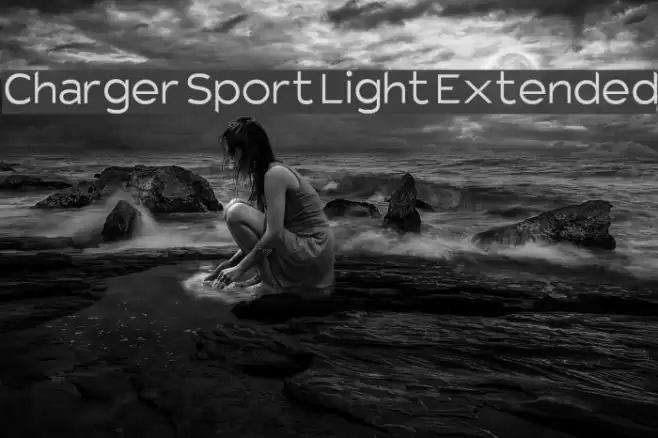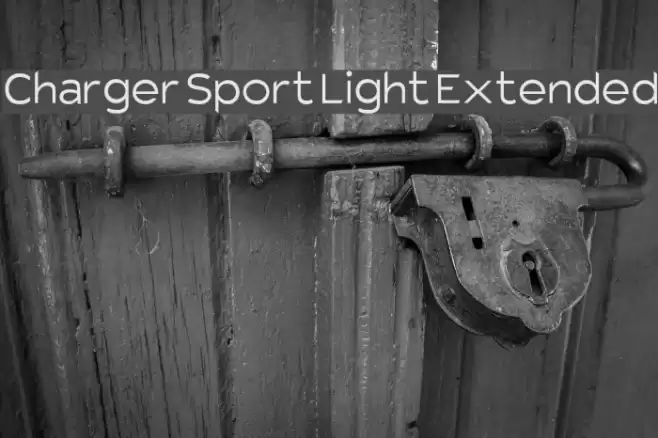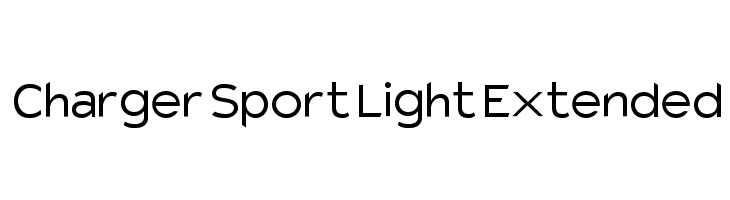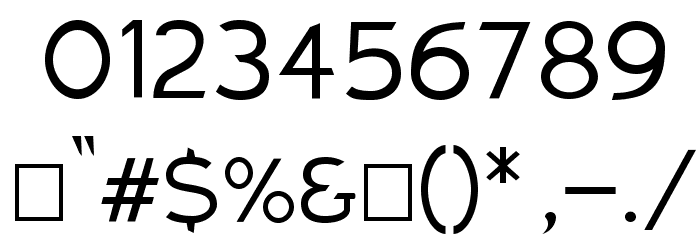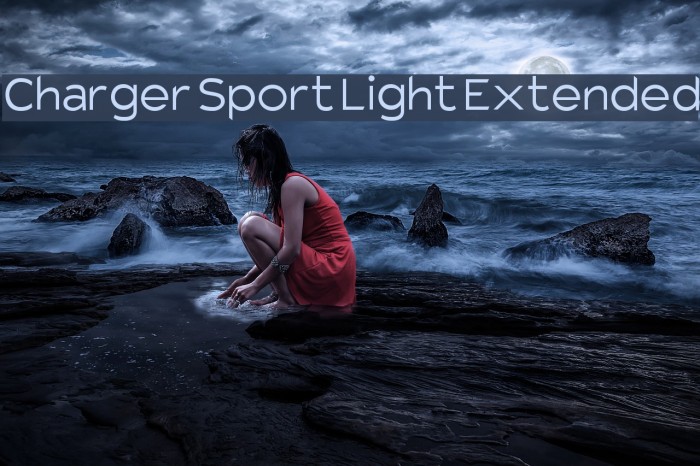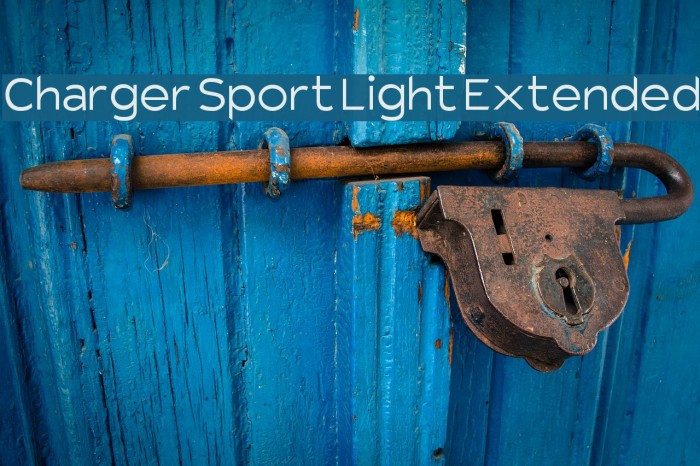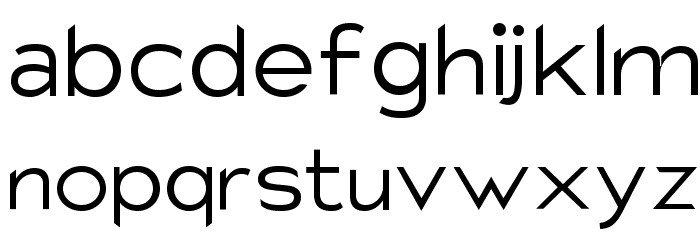
Charger Sport Light Extended Font
Charger Sport Light Extended Description
This font features a sleek and modern design with clean lines and a geometric structure. The characters are well-balanced, offering a harmonious blend of curves and straight edges. The uppercase letters are bold and assertive, while the lowercase letters maintain a friendly and approachable appearance. Numbers are clear and easy to read, making them suitable for various applications. Special characters are distinct and well-integrated into the overall design. The font's extended width gives it a spacious feel, enhancing readability and making it ideal for both digital and print media.
A modern, geometric font with clean lines and an extended width from Uncategorized fonts.
- Proposed Projects: Ideal for branding, advertising, web design, and editorial projects.